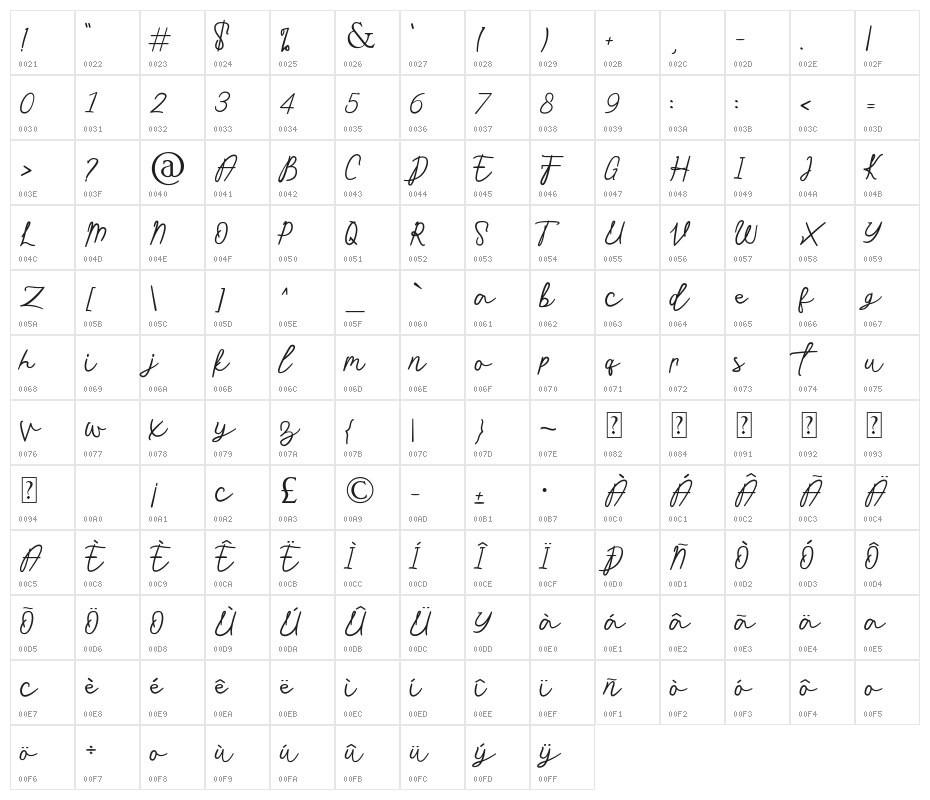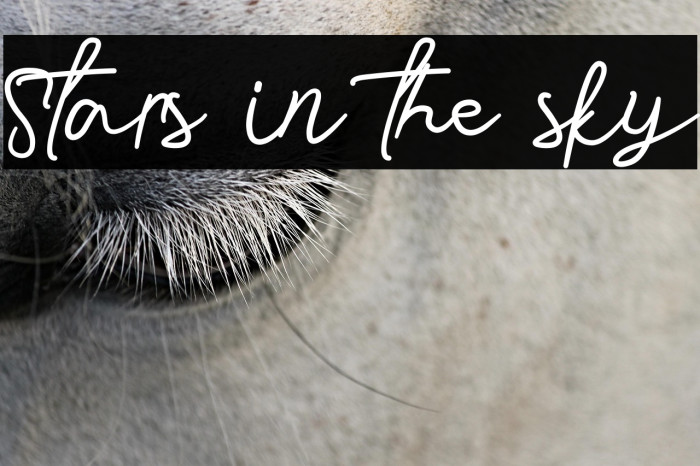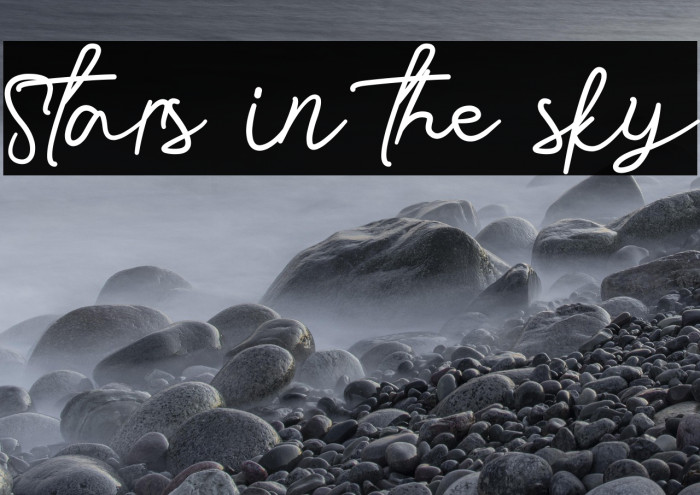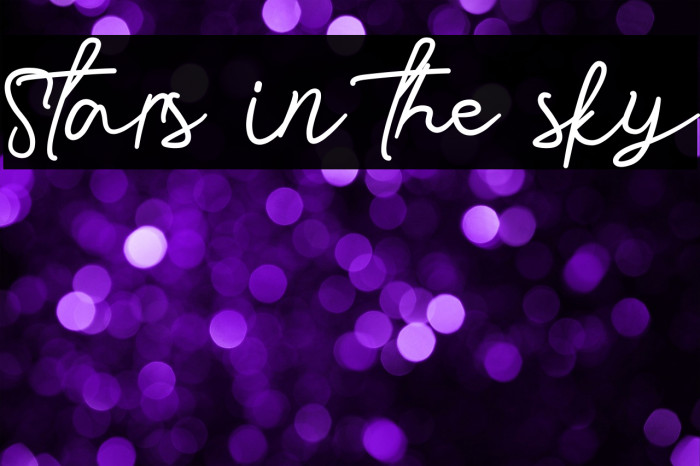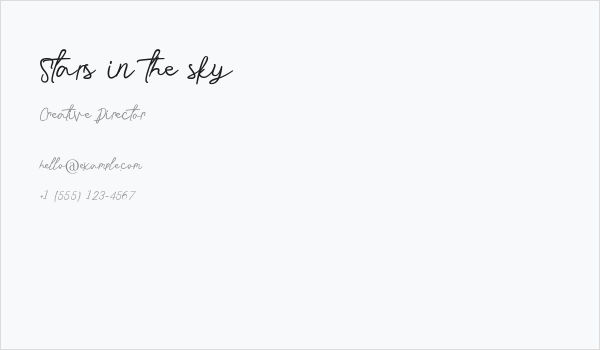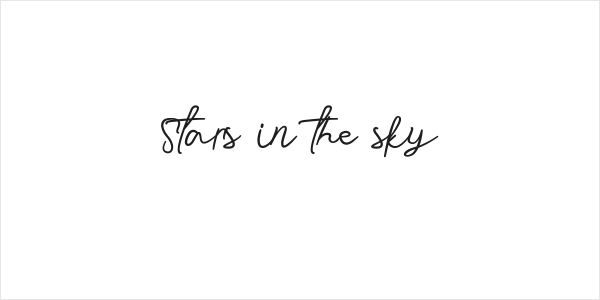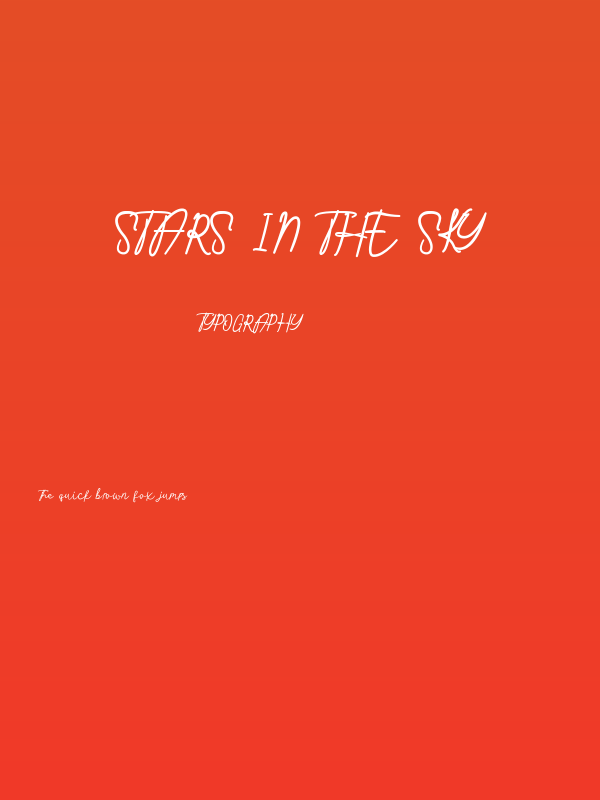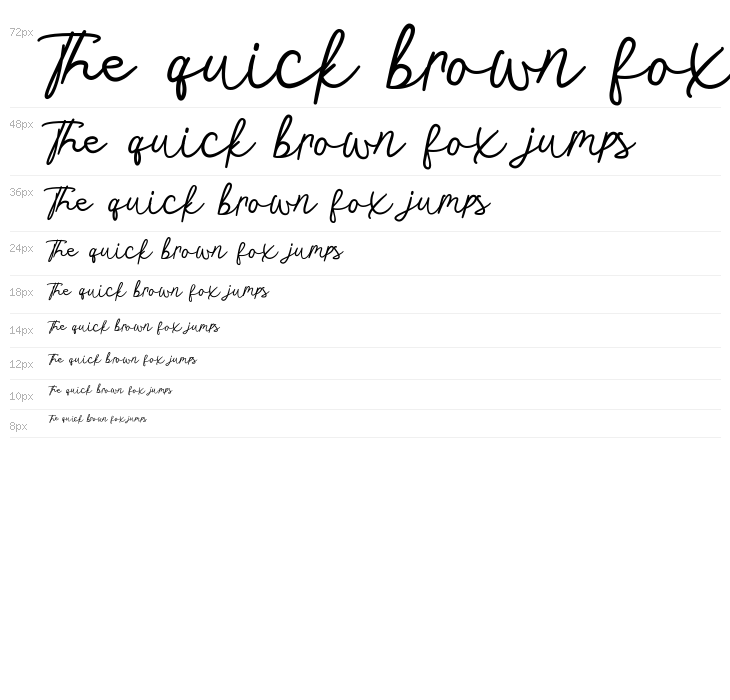
Stars in the sky Font
Stars in the sky Description
This font features a flowing, cursive style with a handwritten appearance. The letters are interconnected, creating a seamless and elegant script. The uppercase letters are bold and expressive, while the lowercase letters maintain a consistent flow, enhancing readability. The numerals are distinct yet harmonize with the overall script style. Special characters are crafted with the same fluidity, ensuring a cohesive look across all glyphs. This font exudes a personal and artistic touch, making it suitable for creative and expressive projects.
| Proposed Projects | Ideal for wedding invitations, greeting cards, personal branding, and artistic projects. |